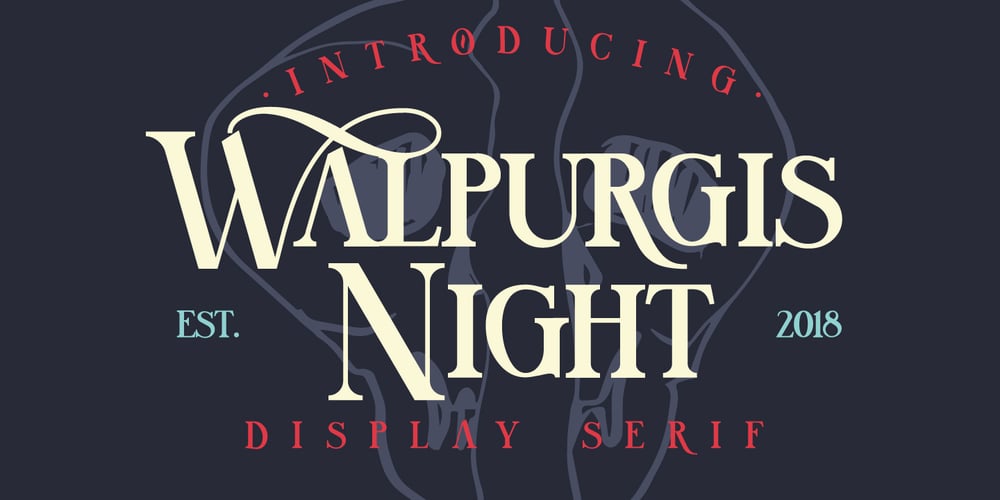
Walpurgis Night Font Family was designed by Andriy Dykun and published by NREY. Walpurgis Night contains 1 styles and family package options. Walpurgis Night is an elegant majuscule vintage serif font inspired by classic antique fonts. It perfectly represents modern and vintage aesthetics. The font includes special uppercase letters, many alternate characters and beautiful ligatures. The font is perfect for wedding elegant invitation cards, beauty and fashion package design, very suitable for books design, magazine typography, packaging, branding, and other creative projects. It supports many languages such as Czech, Danish and Norwegian, Deutsch, English, Espanol, French, Italiano, Magyar, Nederlands, Polish, Portuguese, Finnish, Swedish, Turkish and others based on extended Latin. To enable the OpenType Stylistic alternates, you need a program that supports OpenType features such as Adobe Illustrator, Indesign, Photoshop & CorelDraw X6-X7. More information about how to access alternate glyphs, you can see it on this link (https://goo.gl/R1n7L8) Thank you and have a great day!